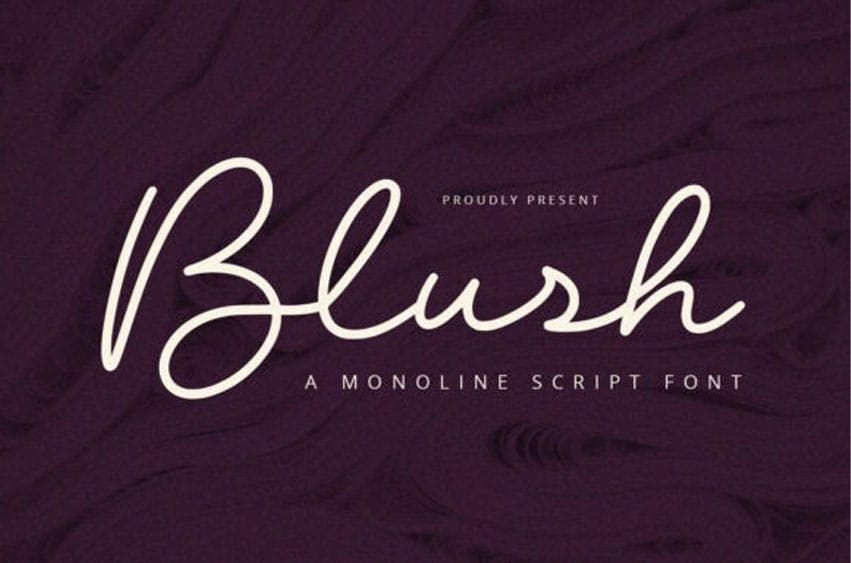
Blush Font
Blush Font is an elegant and modern monoline script that captures the essence of effortless sophistication. Featuring a single, fluid stroke and beautifully looping connections, this typeface exudes a gentle yet confident charm. Its clean, consistent weight ensures perfect readability while maintaining the personal touch of authentic handwriting.
This versatile font is an absolute must-have for elevating projects that require a hint of luxury and style. It will be perfectly used for:
Premium Branding & Logotype Design
Wedding Invitations & Stationery
Boutique Packaging & Product Labels
Social Media Graphics (Instagram, Pinterest)
​​​​​​​Clothing, Posters, and Magazines
Let Blush lend a unique, modern voice to your next design.